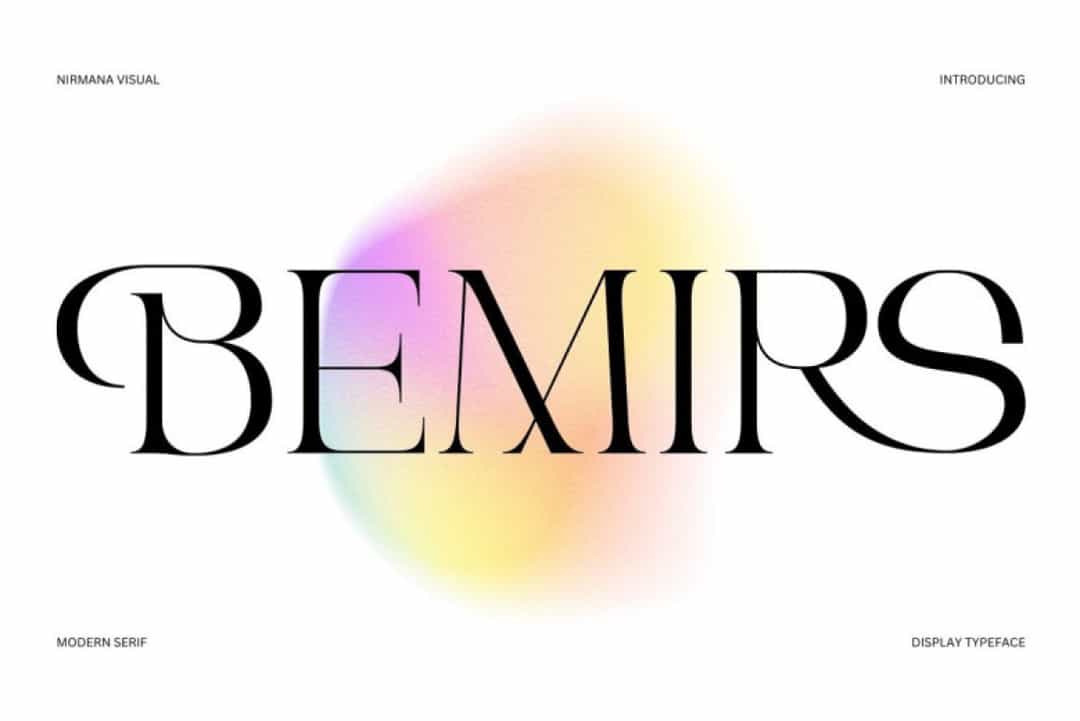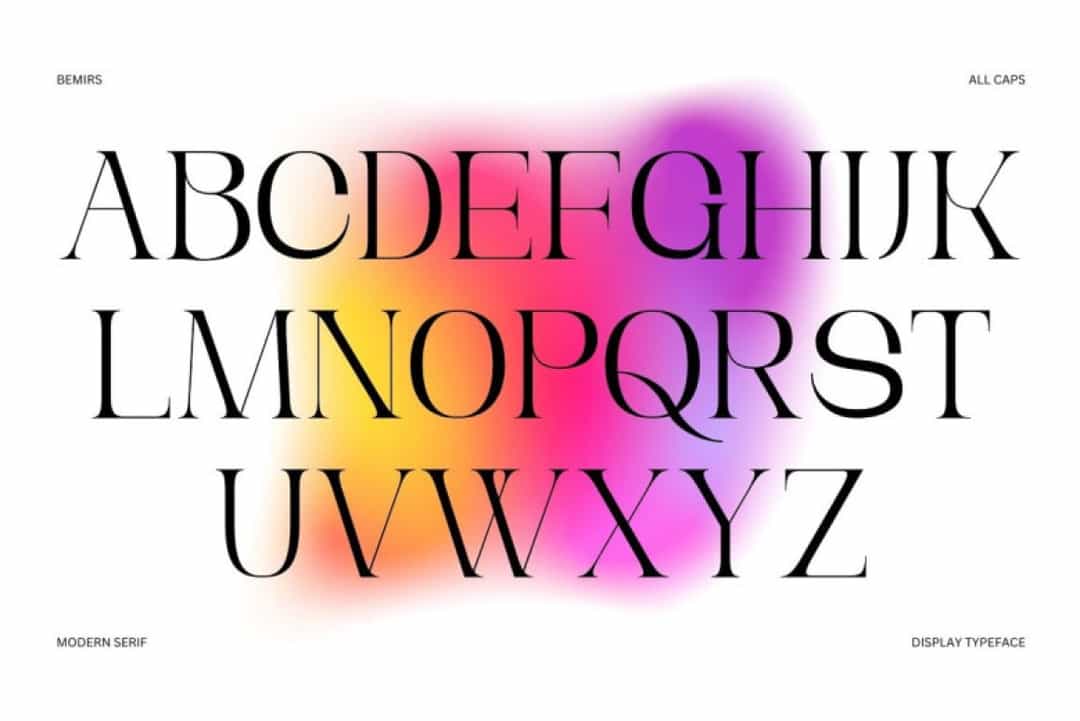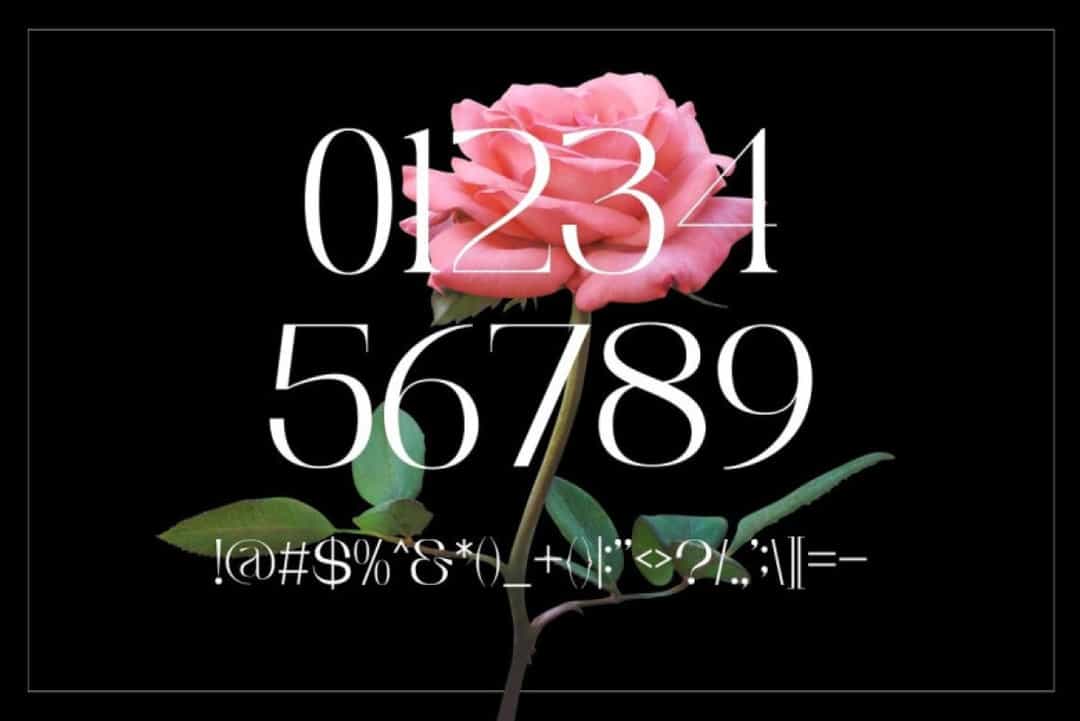
Bemirs Serif Typeface. Bemirs is an elegant typeface which can be applied to a variety of design tasks, such as branding and logo creation, social media posts, advertisements and product designs.